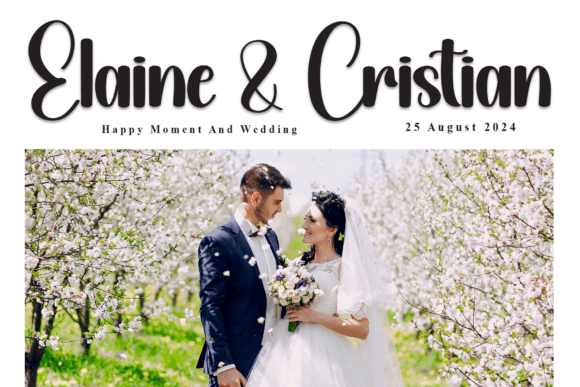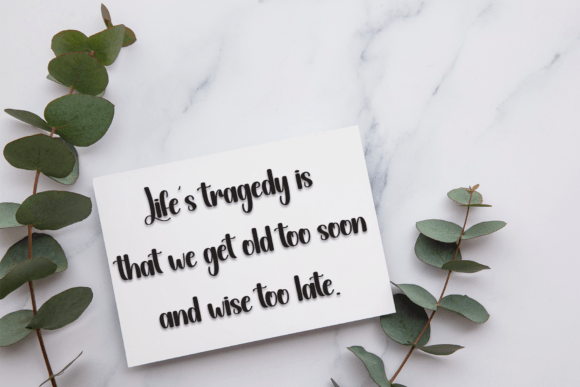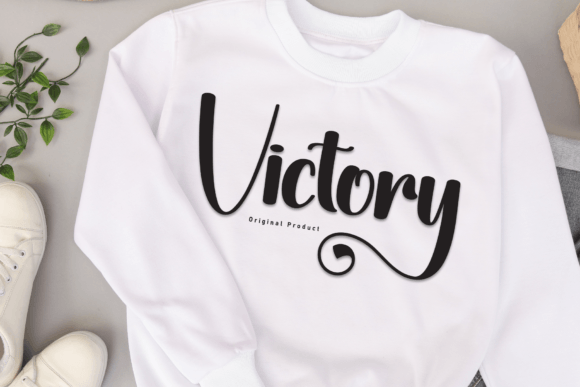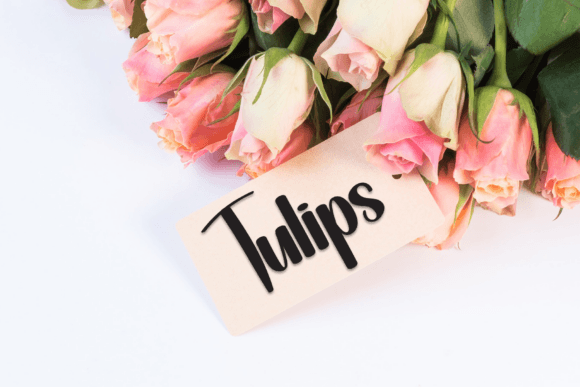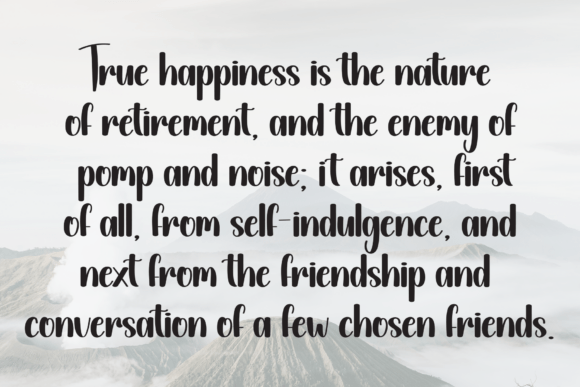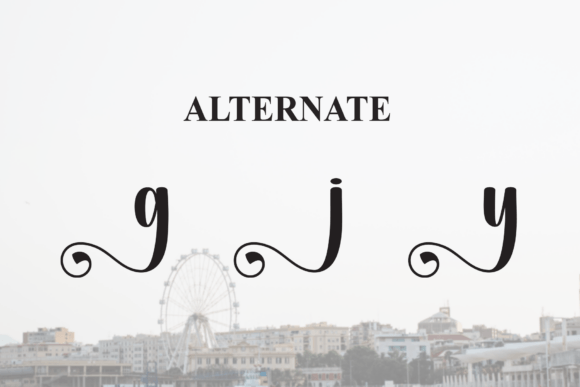
Discover the Charm of Birghton Font: A Sweet and Friendly Handwritten Font
Are you a designer or crafter looking for a font that can add a touch of warmth and personality to your projects? Look no further than Birghton Font, a sweet and friendly handwritten font that’s perfect for a wide range of designs. With its natural and unique style, Birghton Font is incredibly versatile and can be used in various contexts, from digital designs to print materials. The only limit is your imagination!
What Makes Birghton Font So Special?
Birghton Font is a beautifully crafted handwritten font that’s designed to evoke a sense of friendliness and approachability. Its natural and fluid strokes give it a unique and organic feel that’s perfect for designs that require a personal touch. Whether you’re creating a logo, a greeting card, or a social media graphic, Birghton Font is sure to add a touch of warmth and personality to your project.
Key Features of Birghton Font
- Handwritten style: Birghton Font is a genuine handwritten font that’s designed to look like it was written with a pen or pencil.
- Natural and unique style: The font’s natural and fluid strokes give it a unique and organic feel that’s perfect for designs that require a personal touch.
- Versatile: Birghton Font is incredibly versatile and can be used in various contexts, from digital designs to print materials.
- Easy to read: Despite its handwritten style, Birghton Font is easy to read and understand, making it perfect for designs that require a clear and concise message.
Use Cases for Birghton Font
Birghton Font is perfect for a wide range of designs, including:
- Logos and branding: Birghton Font is perfect for creating logos and branding materials that require a personal touch.
- Greeting cards and invitations: The font’s friendly and approachable style makes it perfect for greeting cards and invitations.
- Social media graphics: Birghton Font is perfect for creating social media graphics that require a personal touch, such as quotes, posters, and flyers.
- Digital designs: The font is perfect for digital designs, including website headers, email newsletters, and digital advertisements.
- Print materials: Birghton Font can also be used in print materials, such as brochures, business cards, and postcards.
Tips for Using Birghton Font
In conclusion, Birghton Font is a sweet and friendly handwritten font that’s perfect for designers and crafters looking to add a touch of warmth and personality to their projects. With its natural and unique style, Birghton Font is incredibly versatile and can be used in various contexts. Whether you’re creating a logo, a greeting card, or a social media graphic, Birghton Font is sure to add a touch of charm and personality to your design. So why not give it a try and see what amazing designs you can create?